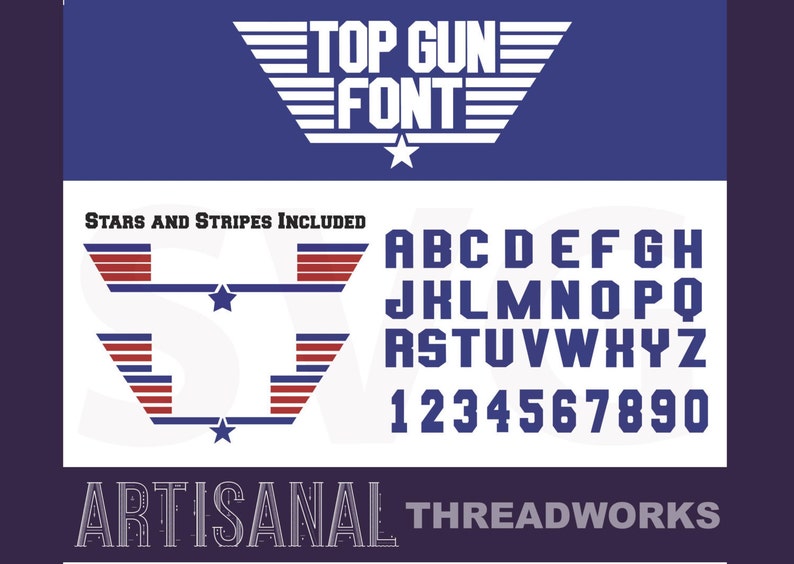
Top Gun Font Word . It was originally designed for the movie top gun in 1986 and has since. “top gun” is the font used in the movie top gun. What font was used in top gun logo and posters? Directly from the best movie by tony scott, with tom cruise, the original font for all lovers. Click now to create a custom image with. The top gun font is a popular choice for many design projects. Top gun font is a bold and iconic typeface that is instantly recognizable. Download and install the top gun font by alphabet & type. Inspired by the iconic movie, top gun features bold, angular letters that evoke a sense of strength and power. You can use the font in your personal projects. The font used for the word “maverick” in the logo for the movie top gun: This font is designed by alphabet & type. Free download of top gun font. April 17, 2013 view all glyphs (55) Simply download it from the link below.
It was originally designed for the movie top gun in 1986 and has since. The font used for the word “maverick” in the logo for the movie top gun: Free download of top gun font. Top gun font is a bold and iconic typeface that is instantly recognizable. Inspired by the iconic movie, top gun features bold, angular letters that evoke a sense of strength and power. April 17, 2013 view all glyphs (55) What font was used in top gun logo and posters? Simply download it from the link below. You can use the font in your personal projects. The top gun font has been downloaded 128,301 times.
Top Gun Font Word This font is designed by alphabet & type. “top gun” is the font used in the movie top gun. The top gun font is a popular choice for many design projects. Directly from the best movie by tony scott, with tom cruise, the original font for all lovers. What font was used in top gun logo and posters? Click now to create a custom image with. Inspired by the iconic movie, top gun features bold, angular letters that evoke a sense of strength and power. The font used for the word “maverick” in the logo for the movie top gun: April 17, 2013 view all glyphs (55) The top gun font has been downloaded 128,301 times. You can use the font in your personal projects. This font is designed by alphabet & type. Simply download it from the link below. Download and install the top gun font by alphabet & type. Top gun font is a bold and iconic typeface that is instantly recognizable. It was originally designed for the movie top gun in 1986 and has since.
Top Gun Font SVG Bundle Font From A to Z SVG Commercial Use Etsy Top Gun Font Word The top gun font has been downloaded 128,301 times. This font is designed by alphabet & type. April 17, 2013 view all glyphs (55) Download and install the top gun font by alphabet & type. The font used for the word “maverick” in the logo for the movie top gun: Directly from the best movie by tony scott, with tom. Top Gun Font Word.
Top Gun Font Free Download Top Gun Font Word This font is designed by alphabet & type. What font was used in top gun logo and posters? Inspired by the iconic movie, top gun features bold, angular letters that evoke a sense of strength and power. The font used for the word “maverick” in the logo for the movie top gun: Download and install the top gun font by. Top Gun Font Word.
Top Gun Font Svg Top Gun DIY Personalize Top Gun Font Etsy UK Top Gun Font Word What font was used in top gun logo and posters? Click now to create a custom image with. The top gun font has been downloaded 128,301 times. Free download of top gun font. “top gun” is the font used in the movie top gun. It was originally designed for the movie top gun in 1986 and has since. Simply download. Top Gun Font Word.
Top gun typography icon with two colors Royalty Free Vector Top Gun Font Word Download and install the top gun font by alphabet & type. Click now to create a custom image with. “top gun” is the font used in the movie top gun. What font was used in top gun logo and posters? This font is designed by alphabet & type. The top gun font has been downloaded 128,301 times. You can use. Top Gun Font Word.
Download free TOP GUN font, free TOP GUN.ttf Regular font for Windows Top Gun Font Word This font is designed by alphabet & type. Inspired by the iconic movie, top gun features bold, angular letters that evoke a sense of strength and power. The font used for the word “maverick” in the logo for the movie top gun: Directly from the best movie by tony scott, with tom cruise, the original font for all lovers. Click. Top Gun Font Word.